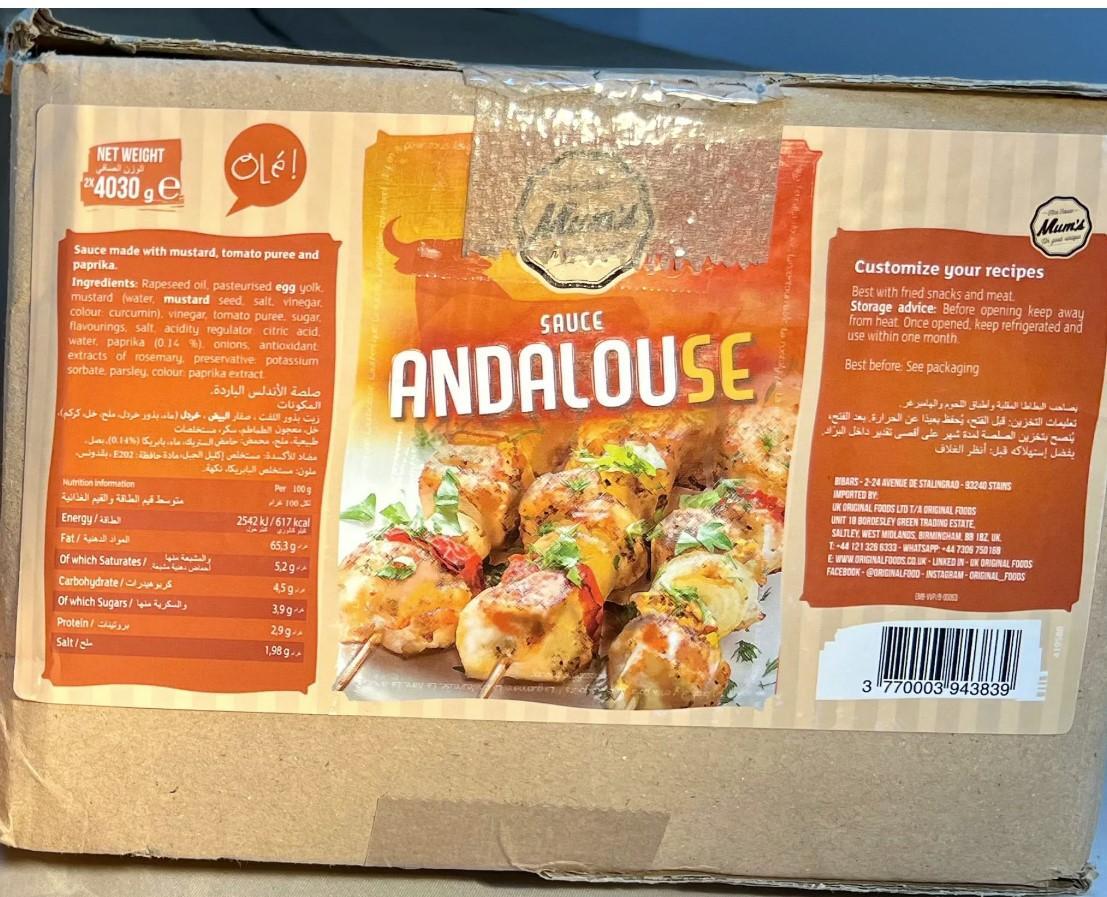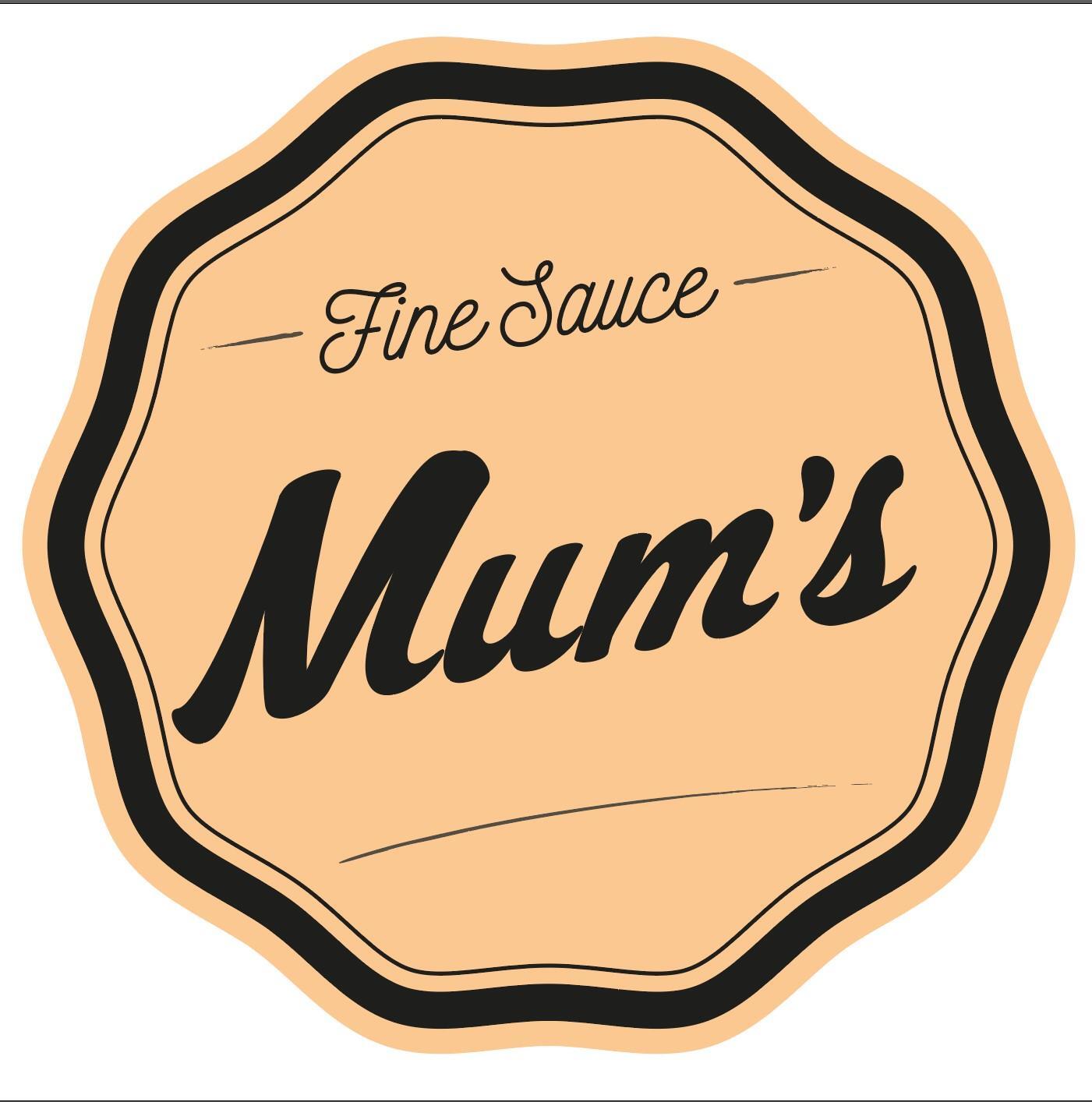
Andalouse sauce
I am looking to identify the font used for the word "Andalouse" on this sauce packaging. I have attached a cropped image of the design for reference.
Here are some details:
The font appears bold and geometric, with a mix of white and yellow coloring.
It is used on food product packaging, specifically for Andalouse sauce.
The style seems modern and clean, possibly customized or derived from a popular sans-serif font.
Thank you very much, you are very good. I would like to take this opportunity to ask you if you can find the font that is present on the logo on the box label.